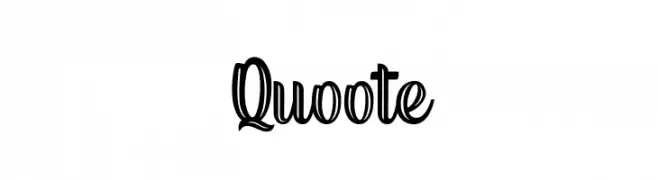
A modern sans-serif font with an oblique slant, offering a sleek and dynamic appearance.
A bold, oblique sans-serif font with a modern and dynamic style.
A clean and modern sans-serif font with balanced proportions and excellent readability.
A bold, modern sans-serif font with clean lines and uniform strokes.
A dynamic, cursive script font with fluid, interconnected strokes.
A modern, bold italic font with a dynamic and energetic style.
A playful, bold font with rounded, irregular characters for a whimsical feel.
A bold, geometric font with a modern and impactful design.
A bold, decorative font with a crystal-like, three-dimensional appearance.
A sophisticated script font with elegant, flowing cursive strokes.
An elegant script font with flowing, cursive letterforms and intricate flourishes.
A bold, elegant script font with flowing, cursive design and ornate uppercase letters.
A flowing, cursive script font with elegant, connected strokes.
A rounded, playful font with smooth curves and a friendly appearance.
A bold slab serif font with a modern yet vintage appeal, featuring thick serifs and geometric shapes.
A bold, modern serif font with rounded edges and strong vertical lines.
A dynamic, cursive font with fluid, interconnected strokes and an expressive style.
A bold, impactful font with thick strokes and a modern geometric influence.
A playful, handwritten font with smooth curves and a casual style.
A bold, modern font with strong, thick strokes for high legibility.
A modern, thin-stroked font with a clean and elegant design.
A sleek, thin, italicized font with a modern and elegant style.
A bold, italicized font with strong strokes and a dynamic slant.
A delicate, flowing script font with an elegant handwritten style.
A bold, expressive script font with flowing, cursive letterforms.
A playful, rounded font with bold, smooth curves and a friendly appearance.